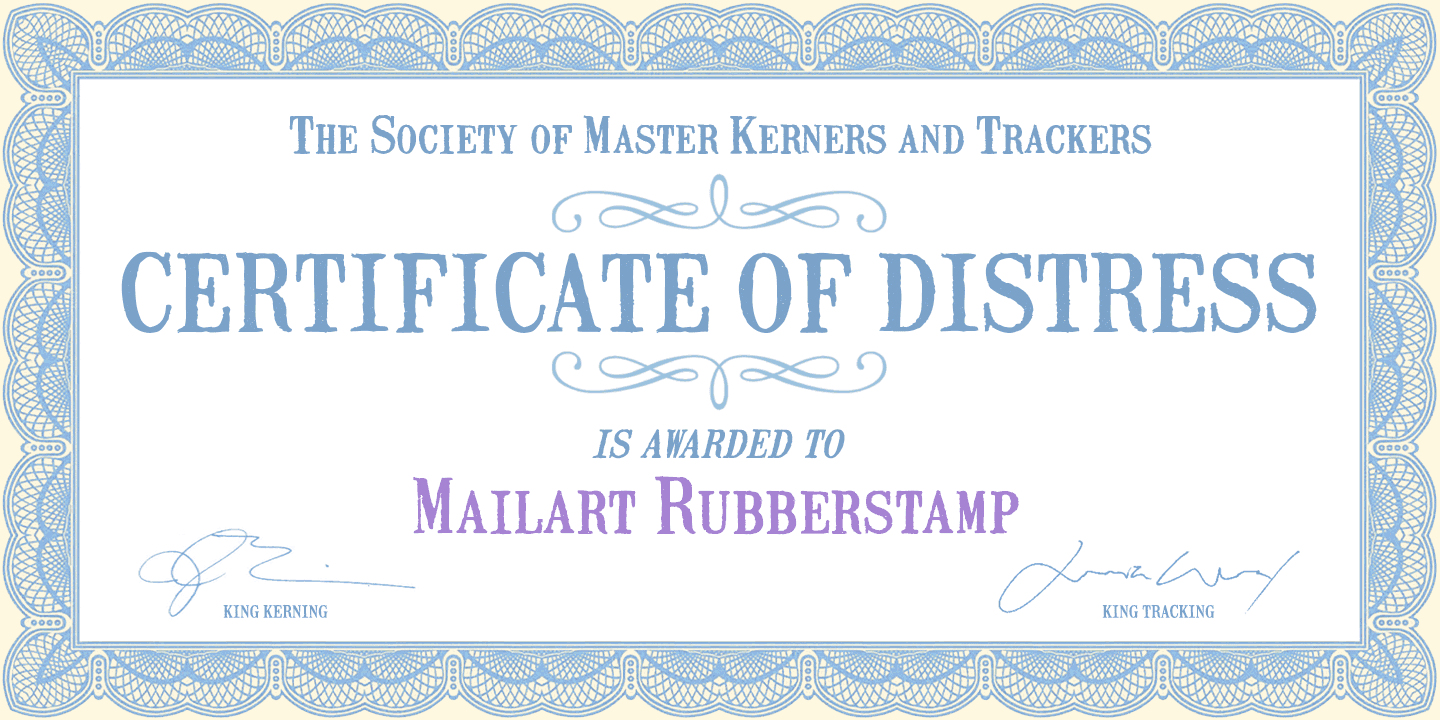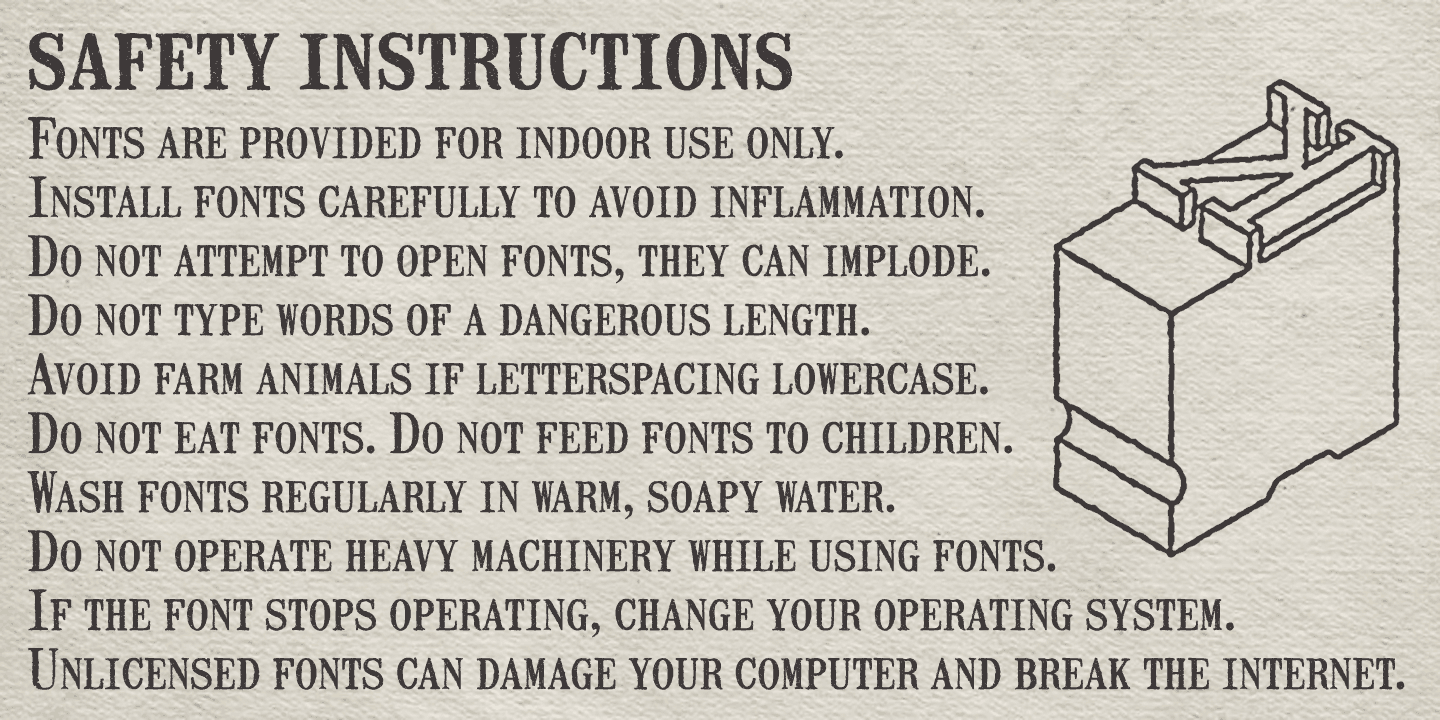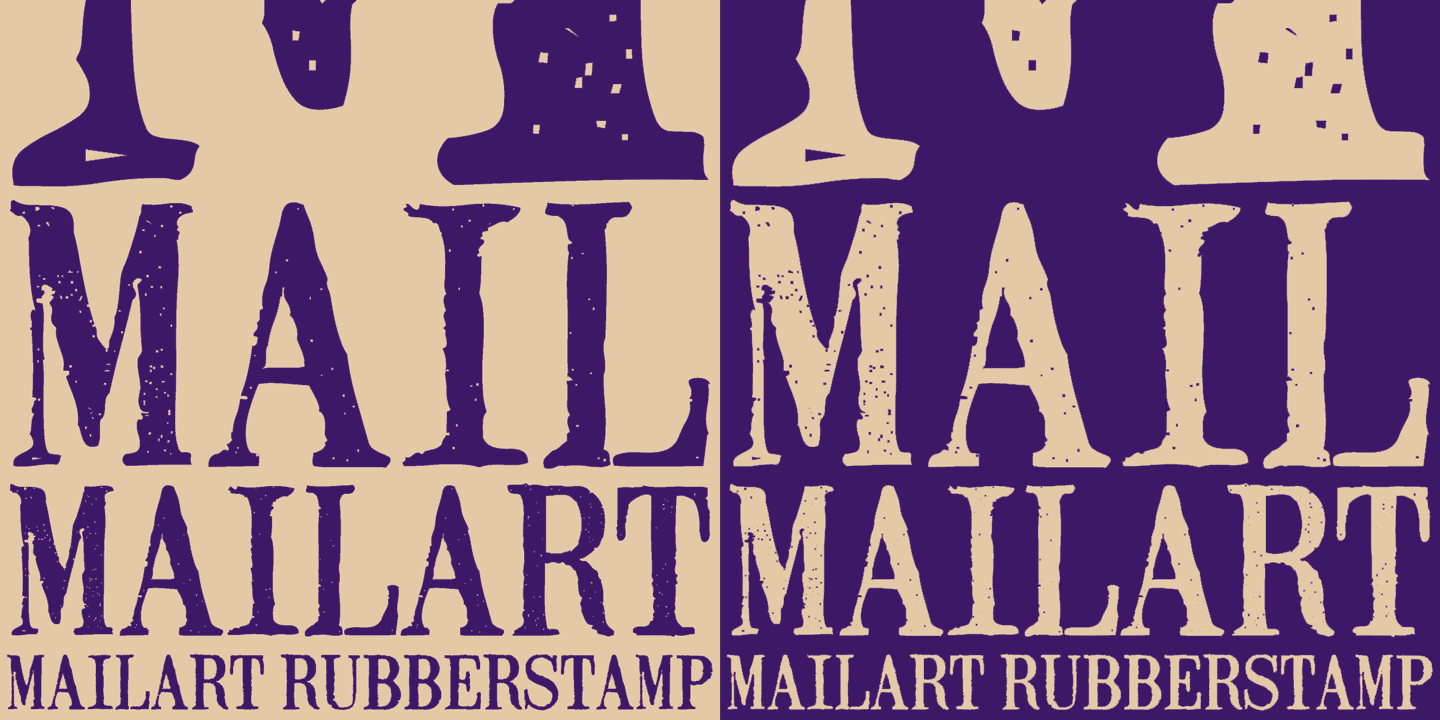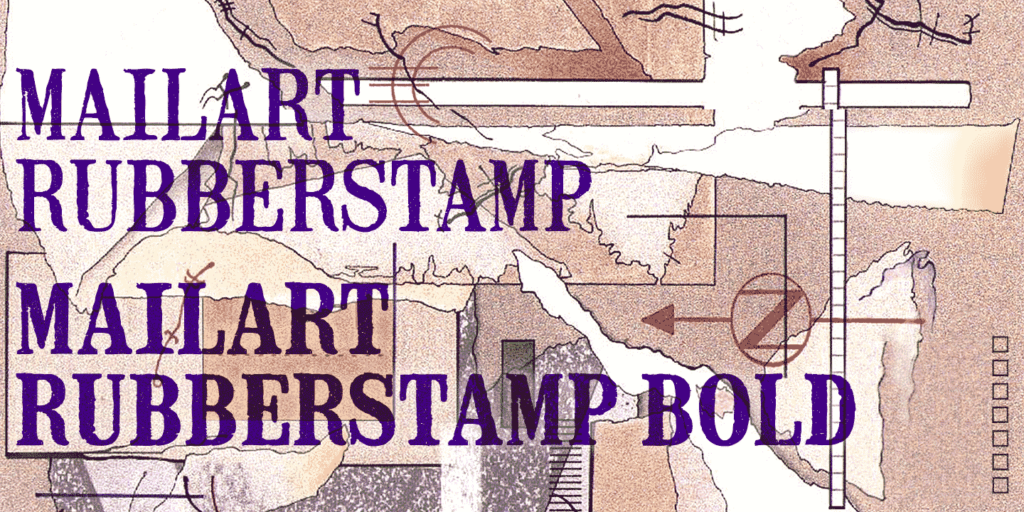
About Mailart Rubberstamp
Mailart Rubberstamp is a distressed display face derived from the individually rubberstamped letters on printed and collaged envelopes received from mail artists, and the typeface Clarendon Condensed. Available in Regular or Bold weights, each is supplied…